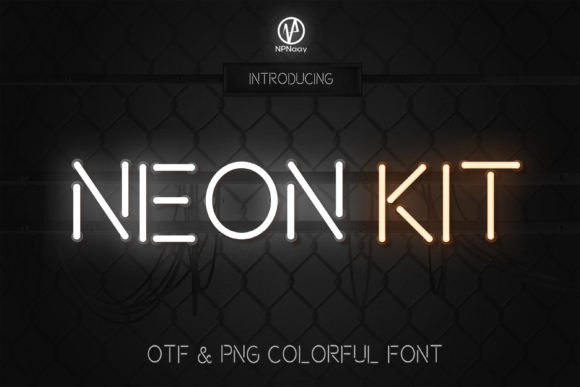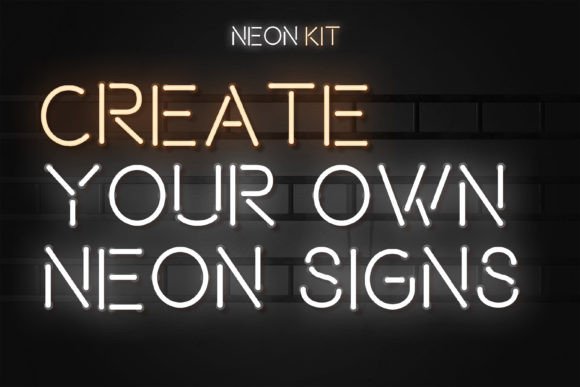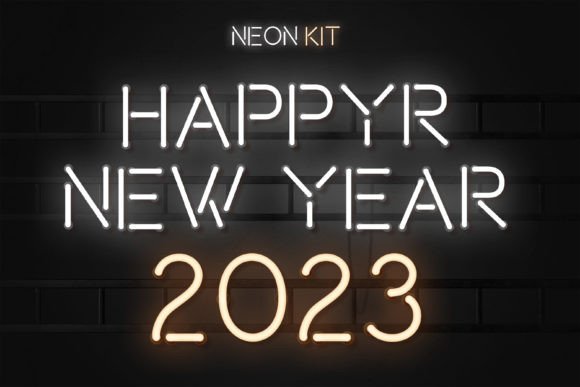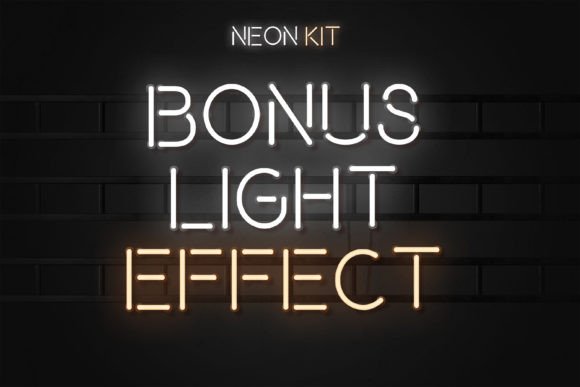
Neon Kit Font: Retro Display Font for Eye-Catching Designs
About the Neon Kit Font
Elevate your designs with Neon Kit Font, a font that combines sophistication with readability. Neon Kit is a nostalgic neon sign display color font. Carefully handcrafted to become your favorite, this font will elevate your projects no matter the topic!
Neon Kit’s bold, retro style is ideal for headlines, short slogans, posters, and branding projects requiring a vibrant, eye-catching aesthetic. It works particularly well for projects related to entertainment, nightlife, or anything needing a strong vintage feel. Avoid using it for body text or lengthy paragraphs; its highly stylized nature reduces readability in extended use.
Consider pairing Neon Kit with a clean sans-serif like Open Sans for body text to create visual balance, or a more geometric sans-serif for a modern contrast. A simple serif like Merriweather could also add a touch of sophistication, grounding the vibrancy of Neon Kit.
The font’s core personality is energetic and playful, yet retains a classic feel. It’s best suited for brands aiming for a retro-modern look that feels both nostalgic and current.